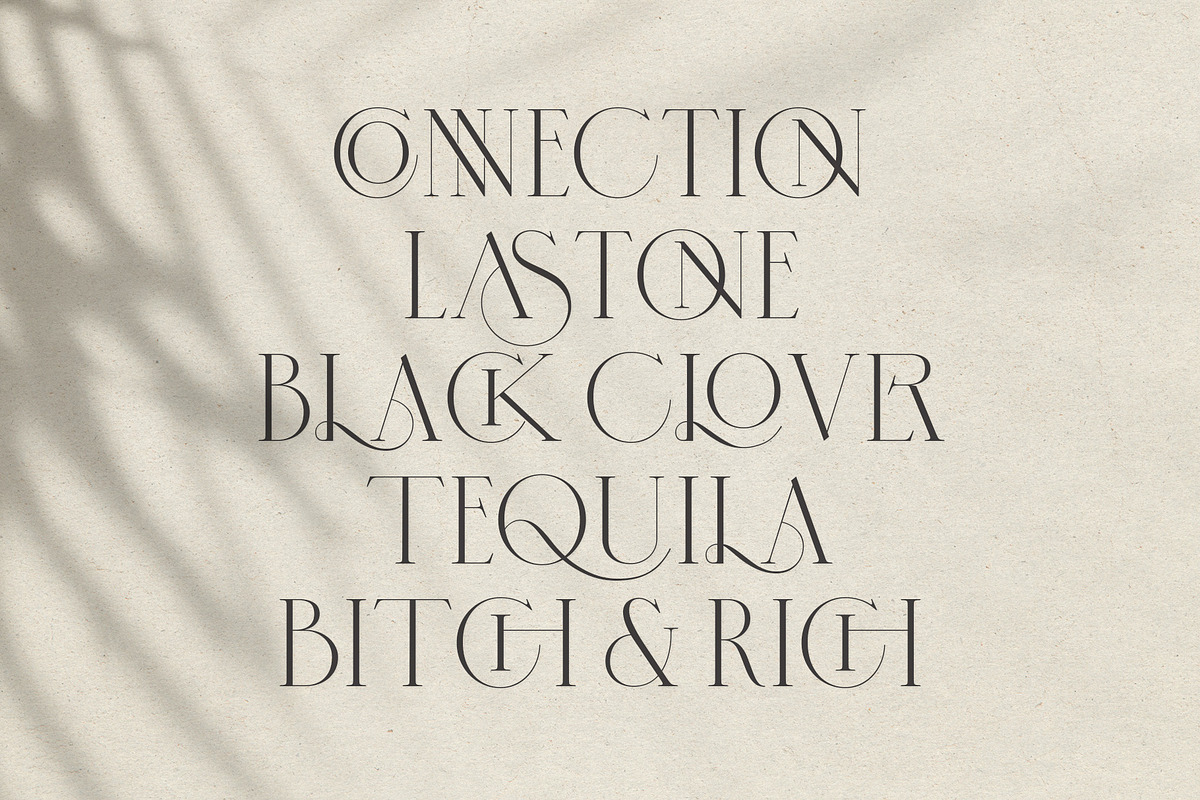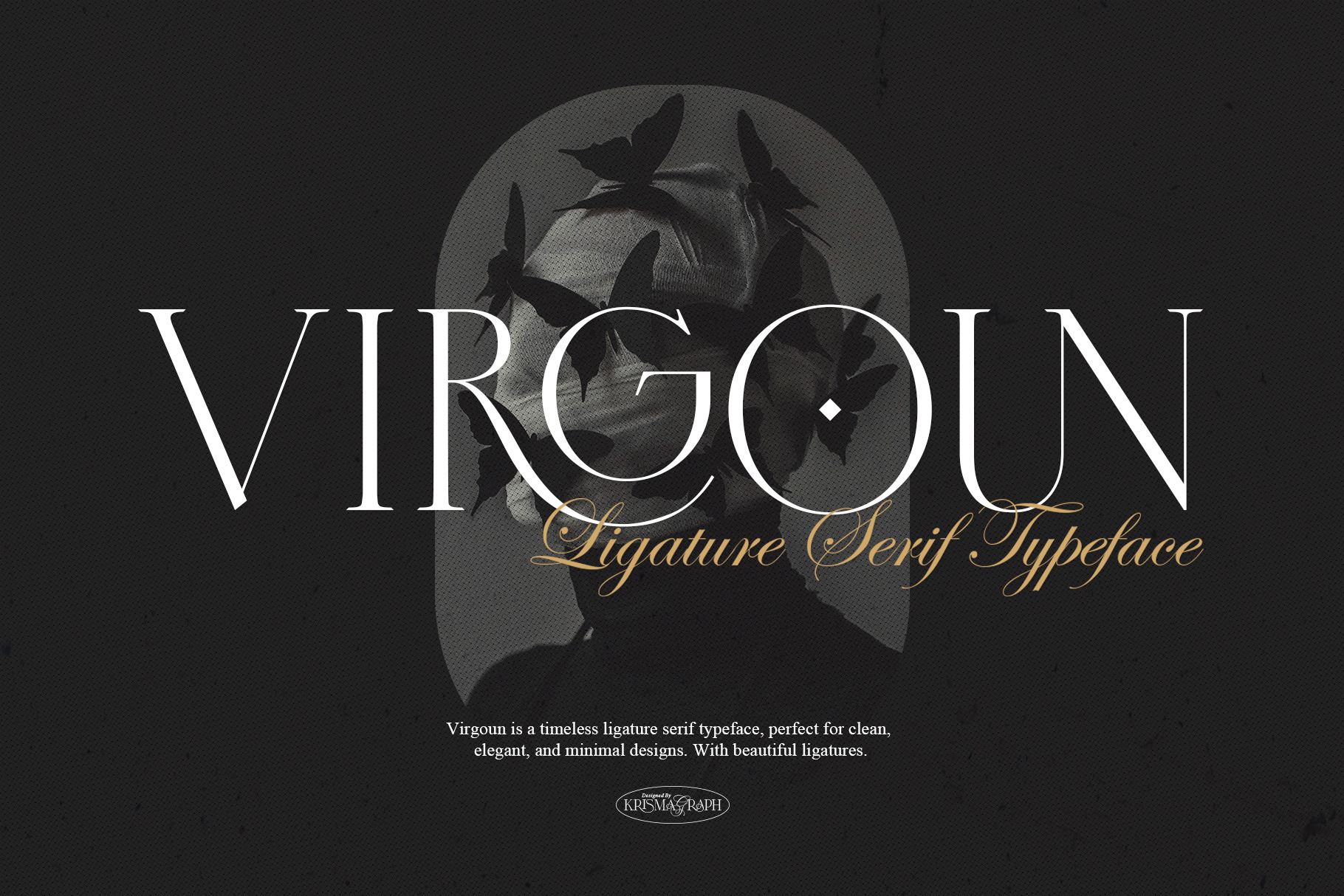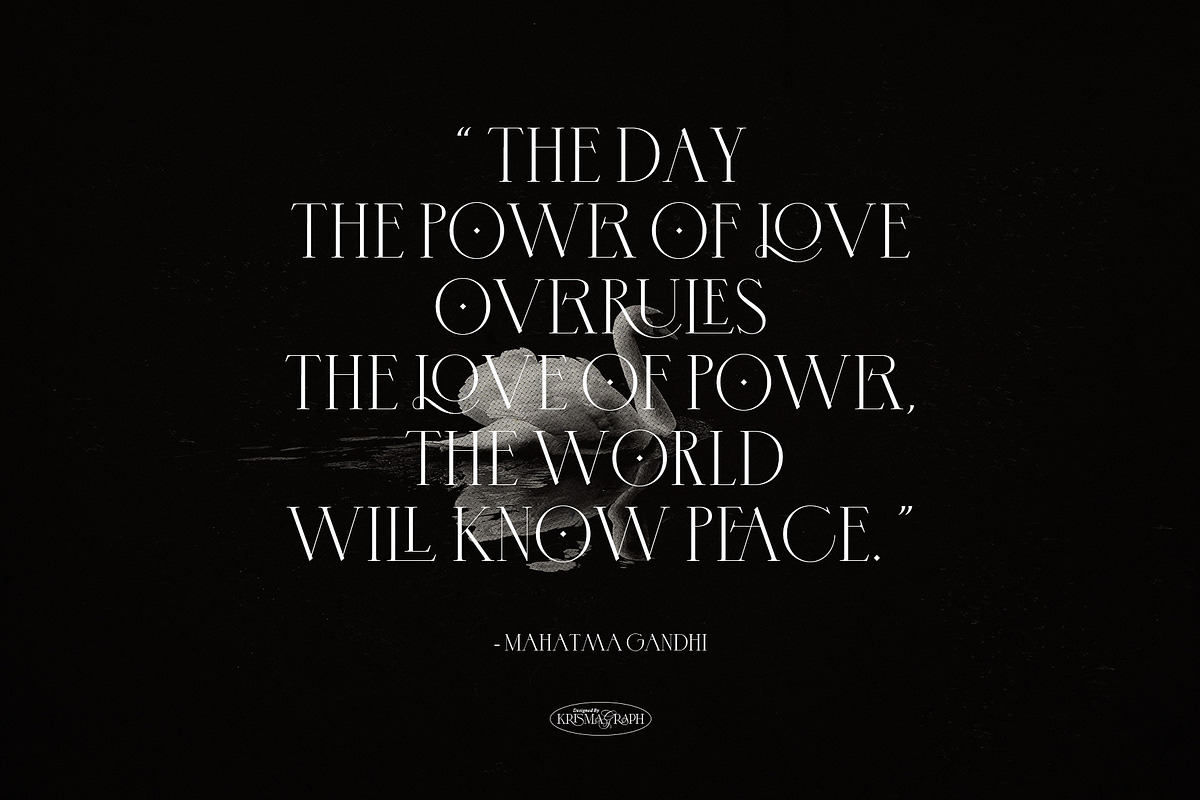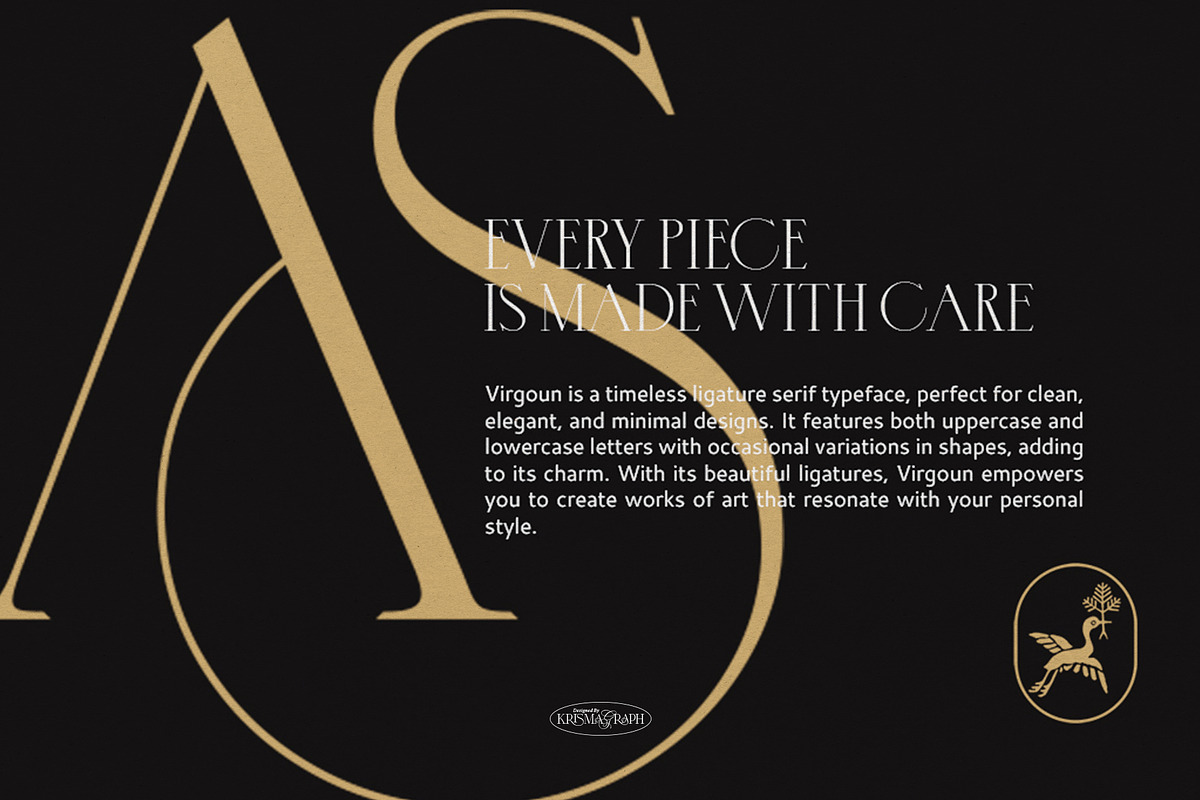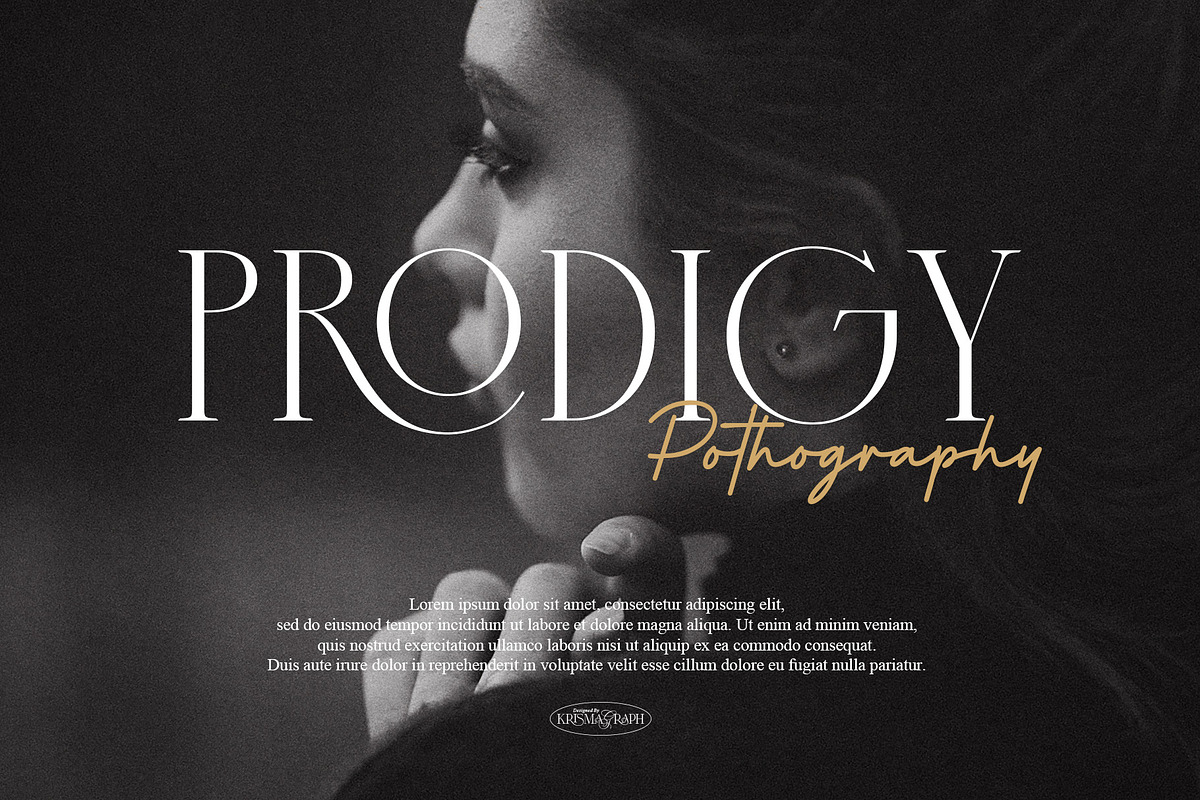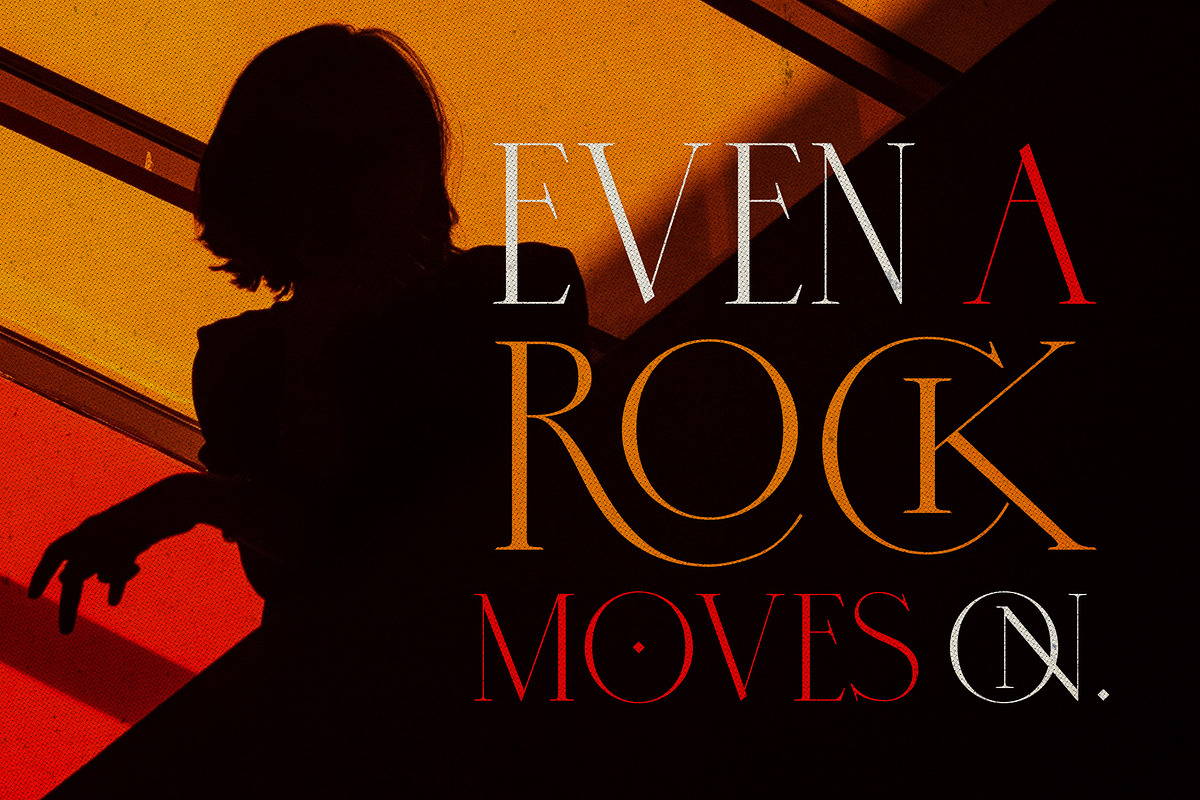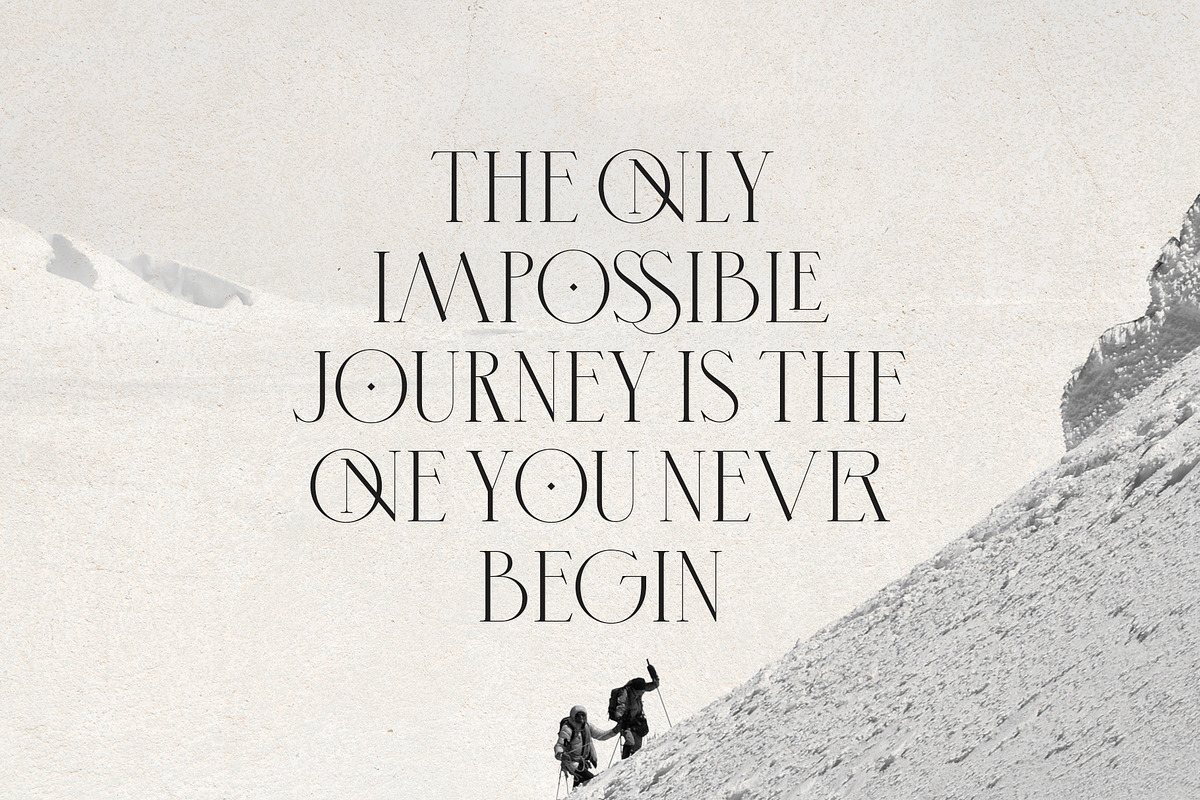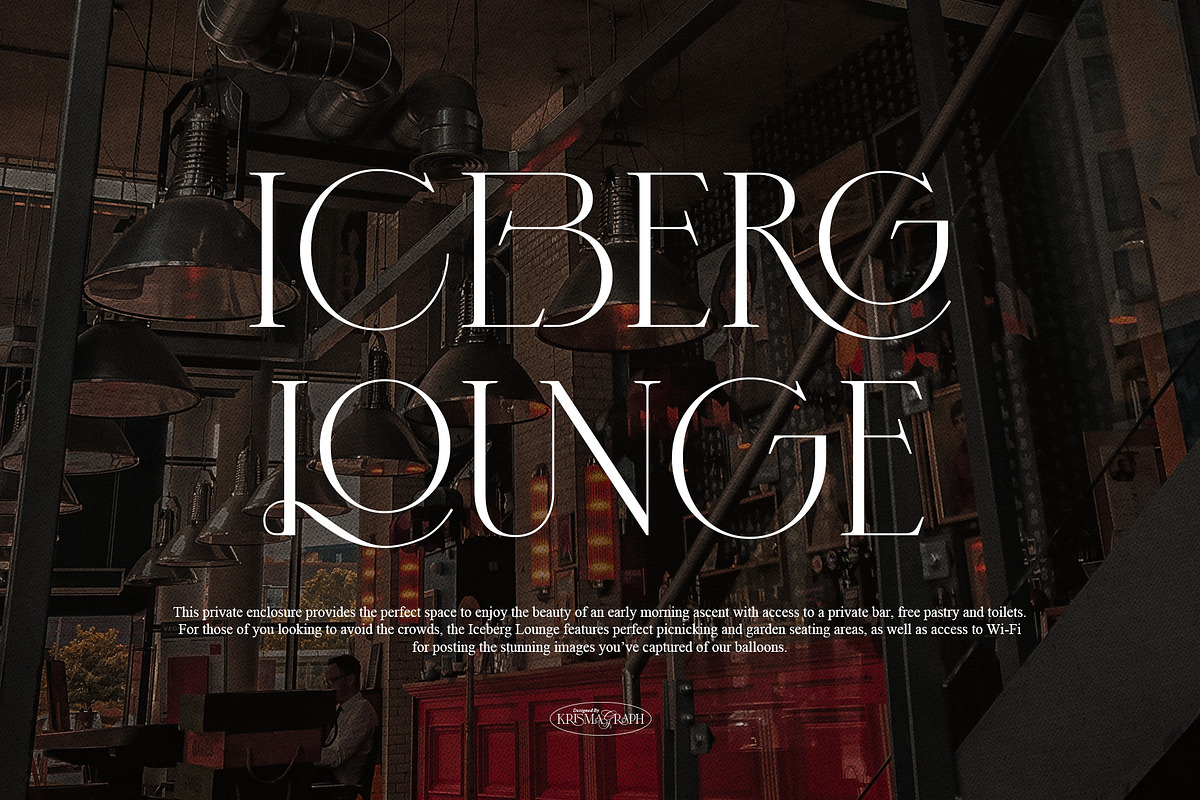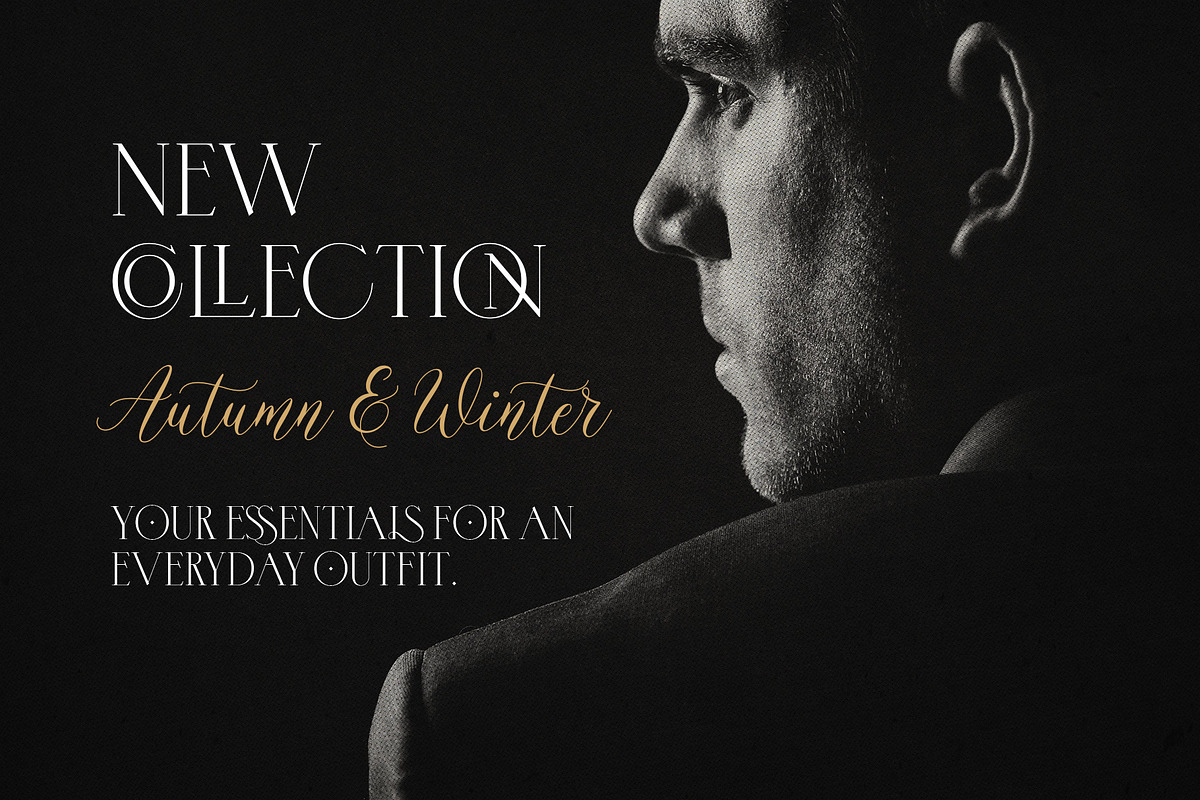
Virgoun | Ligature Serif Typeface
Virgoun is a timeless ligature serif typeface, perfect for clean, elegant, and minimal designs. It features both uppercase and lowercase letters with occasional variations in shapes, adding to its charm. With its beautiful ligatures, Virgoun empowers you to create works of art that resonate with your personal style.
Ideal for a wide range of projects, including branding, photography, invitations, fashion, magazines, posters, advertisements, postcards, wedding invitations, quotes, blog headers, books, websites, and more, Virgoun stands out on its own, while also complementing calligraphy, script, signature, and handwriting typefaces.